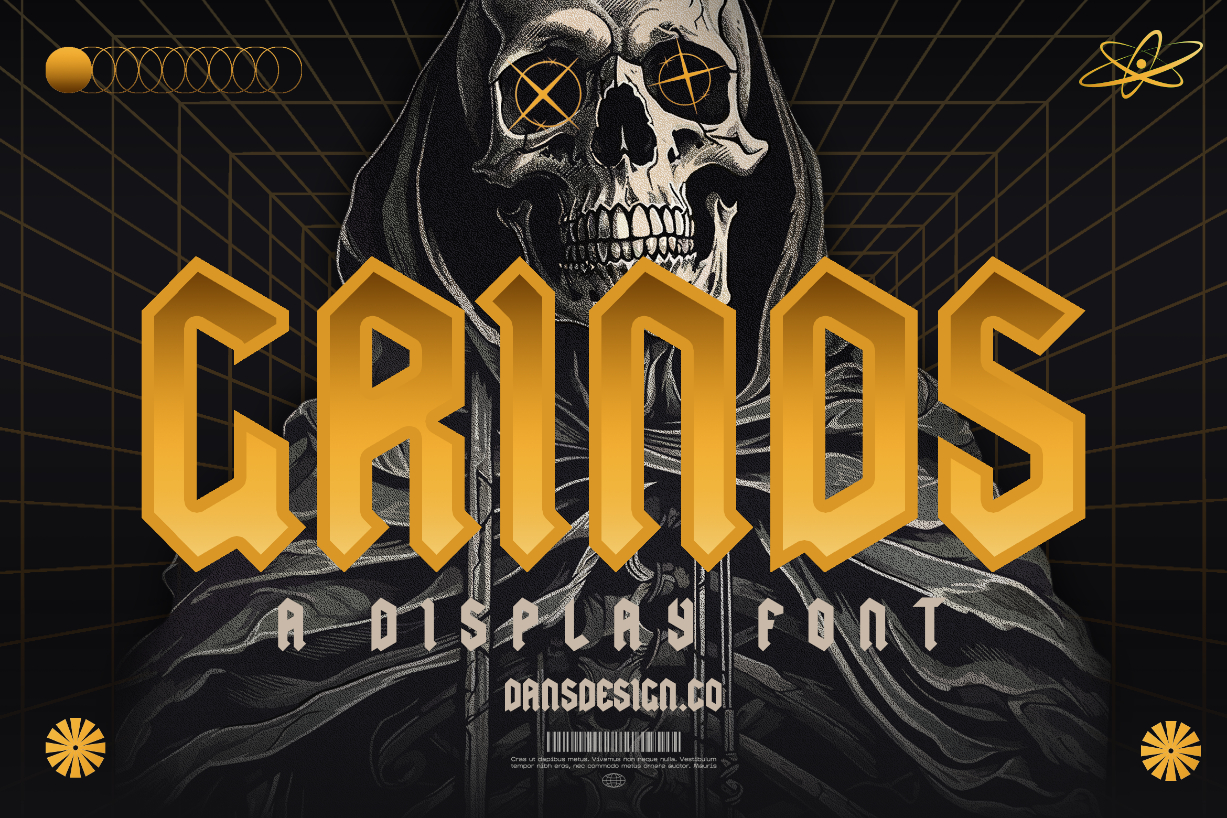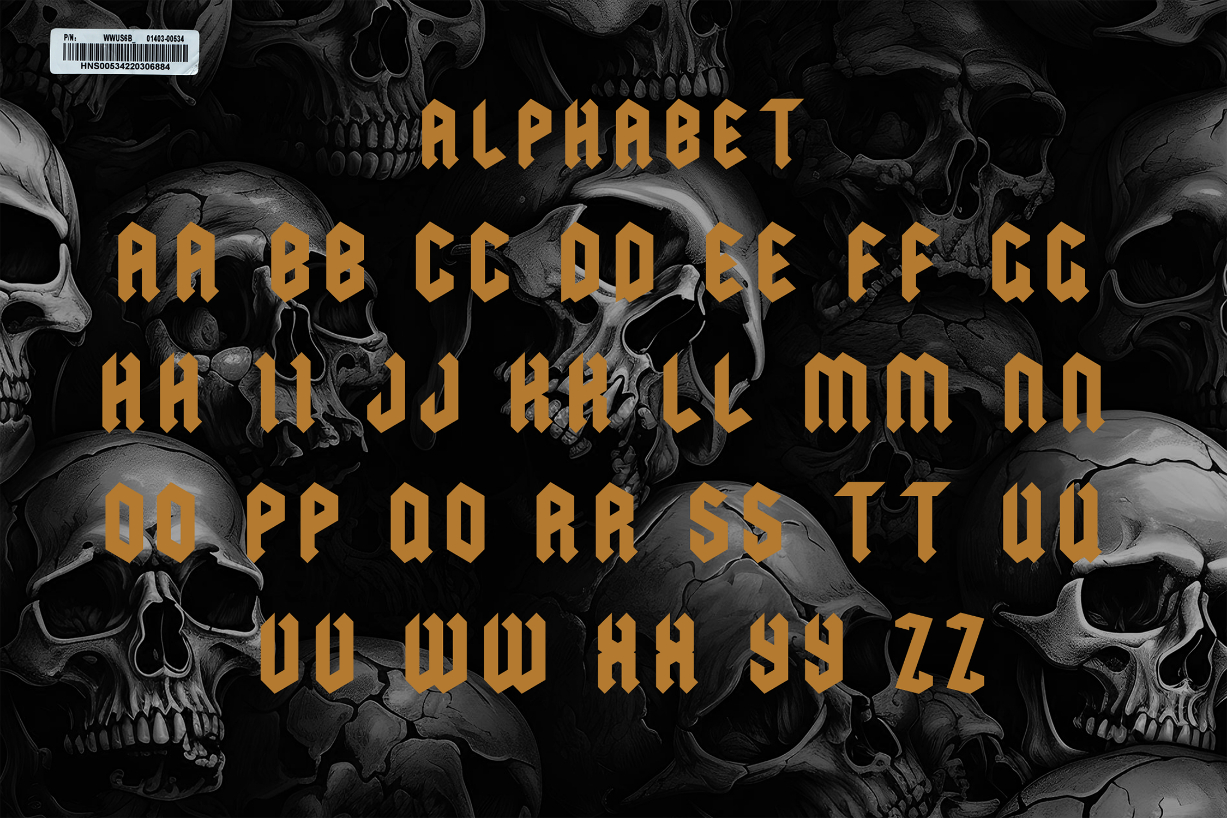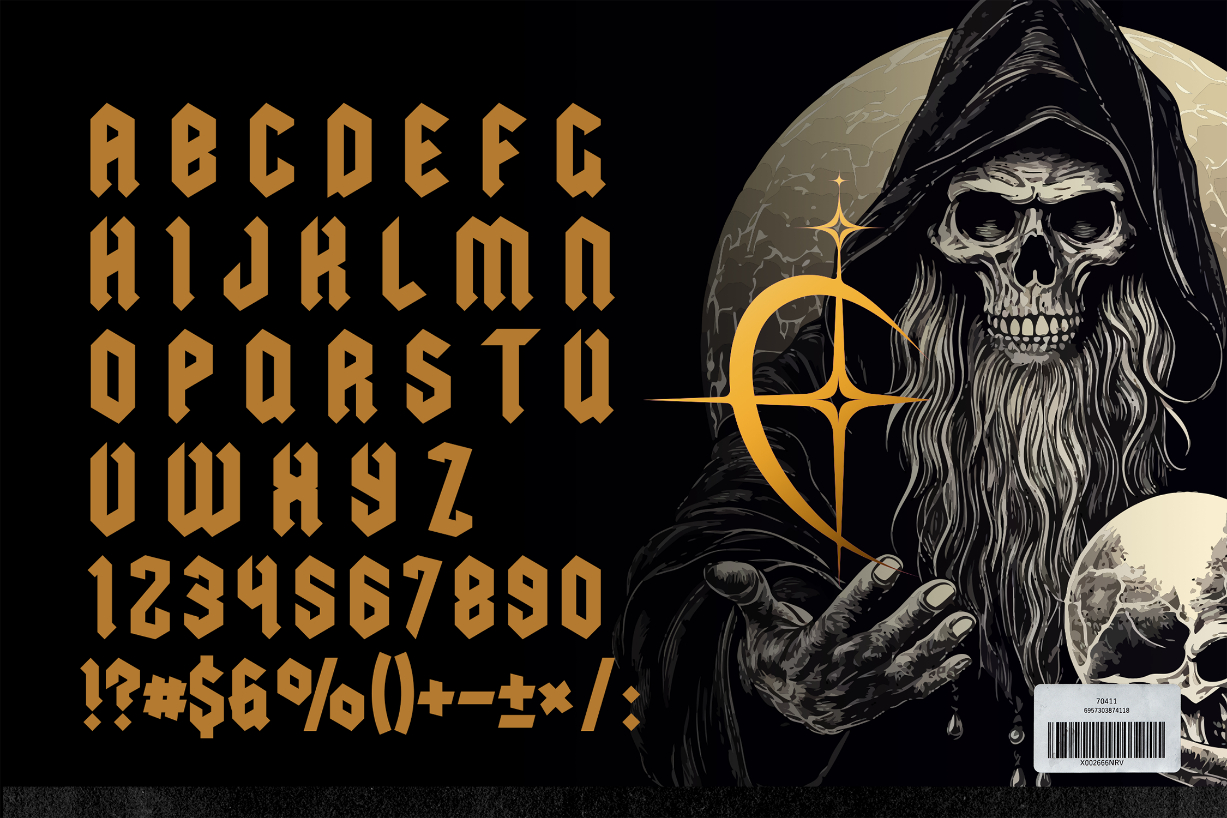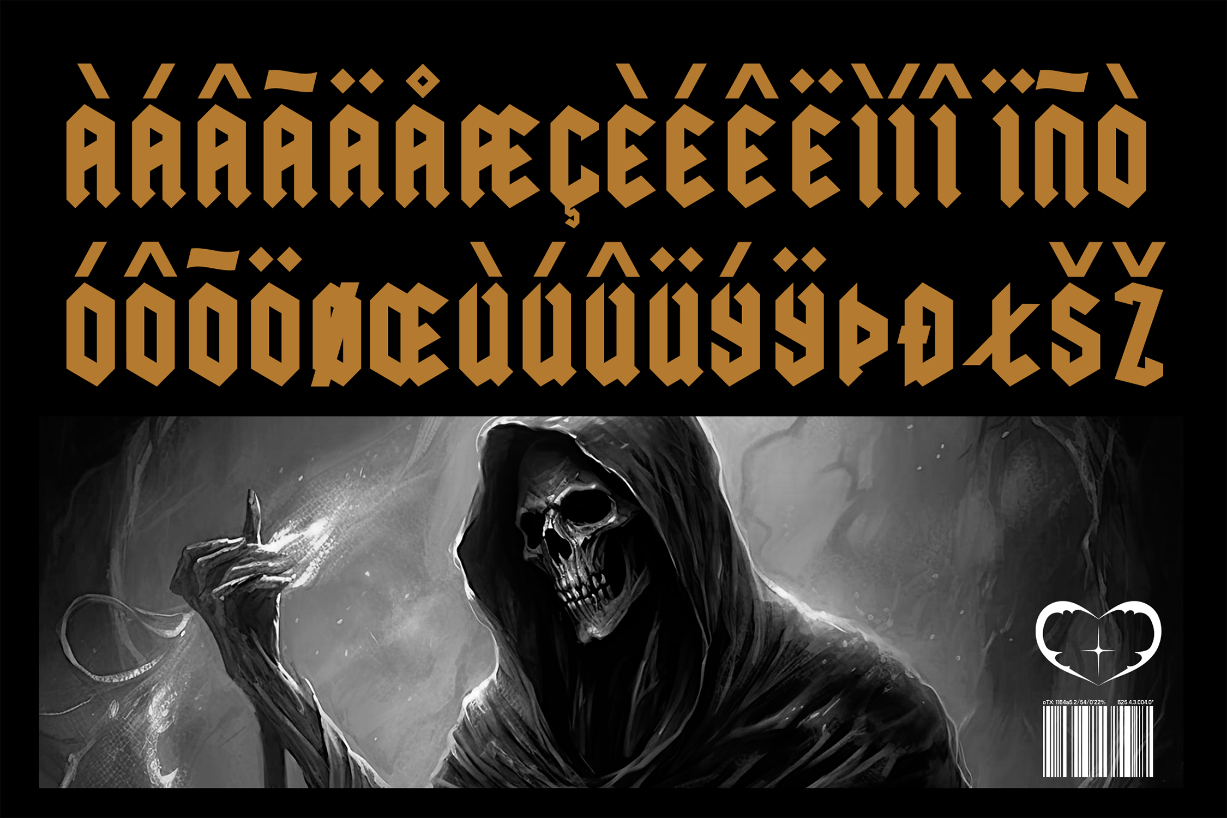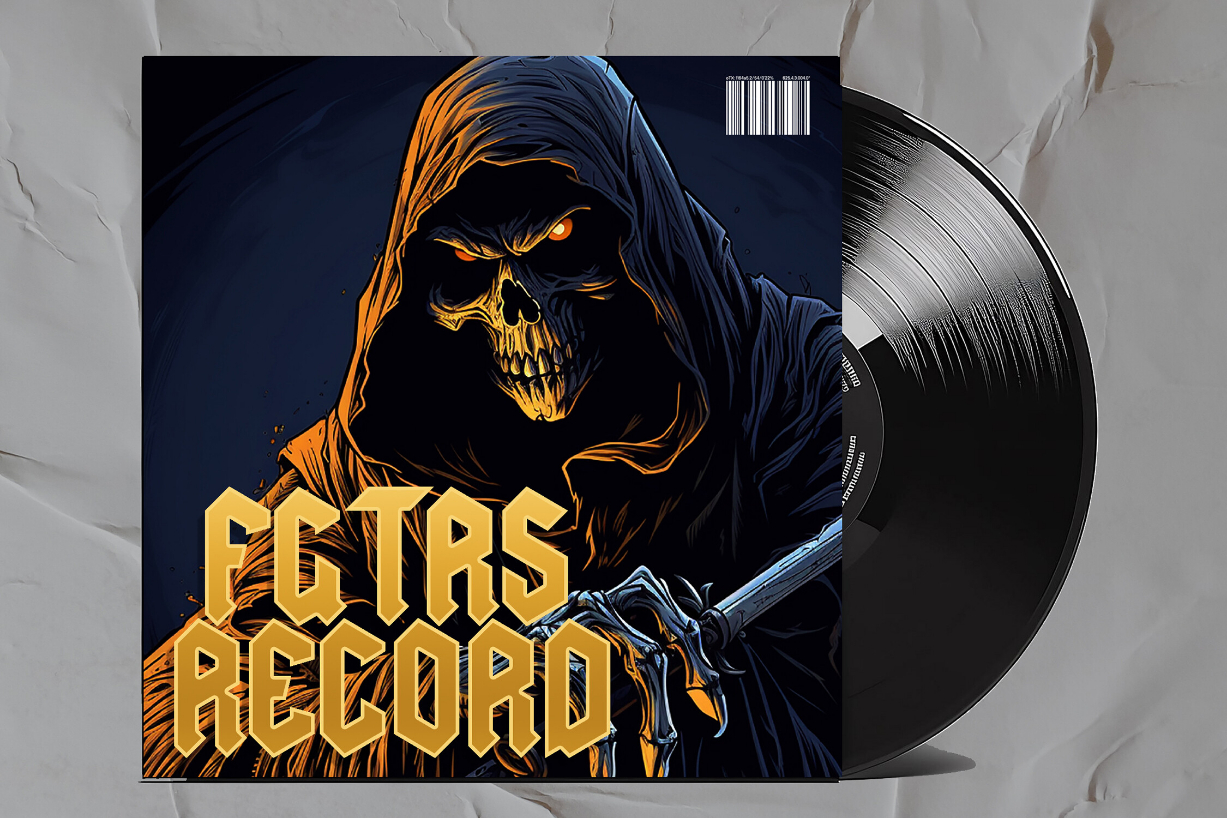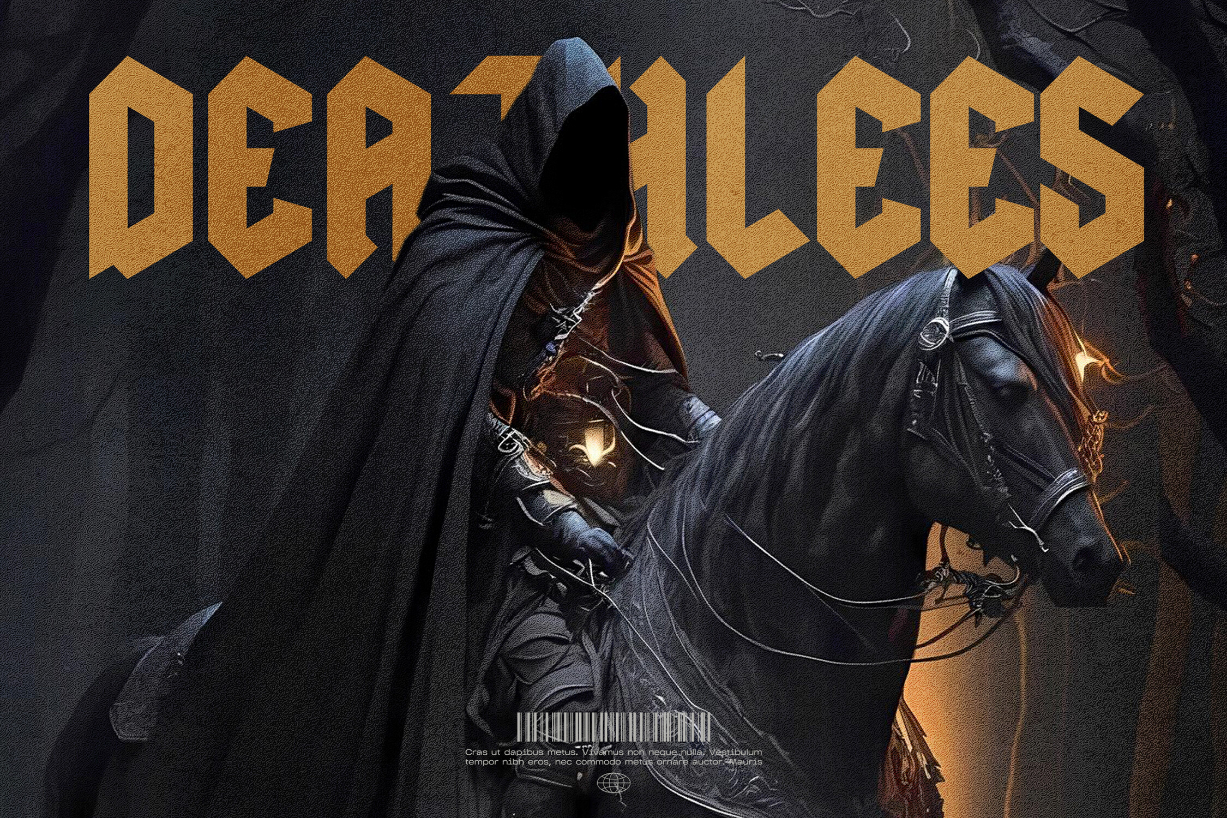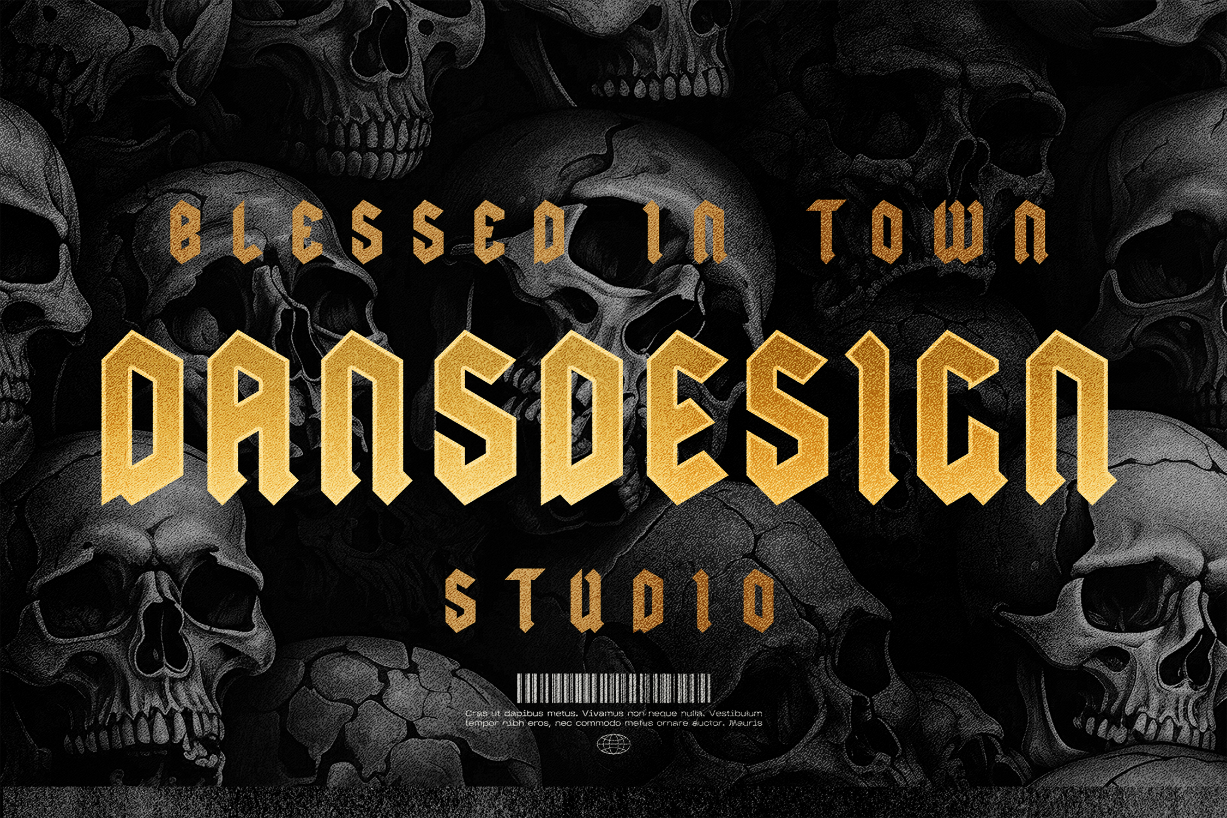
Grinds Font
About Grinds Font
Grinds is a cool blackletter font that channels the raw energy and historical allure of medieval craftsmanship. With intricate, Gothic-inspired letterforms and a bold presence, it transports your designs into a realm of timeless sophistication. Ideal for projects seeking a classic and powerful aesthetic, Grinds exudes an aura of ancient grandeur.